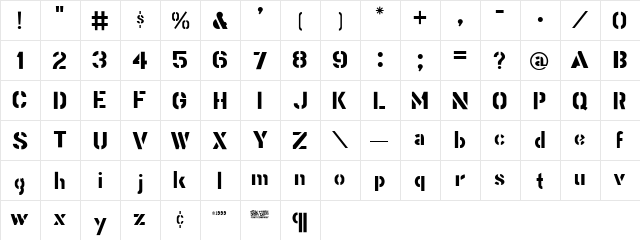
Stencil Gothic Regular
Design Context for Stencil Gothic Typeface
Stencil Gothic borrows the utilitarian aesthetic of stencil lettering, with its characteristic cutaways and no-frills construction lending an industrial edge.
A strong choice for packaging that needs edge, warehouse aesthetics, and rough-and-ready visual identities.
Pro Tip: Use Stencil Gothic at large sizes on packaging, posters, or apparel where the stencil cutaways read clearly. Avoid small sizes where those gaps become visual noise.